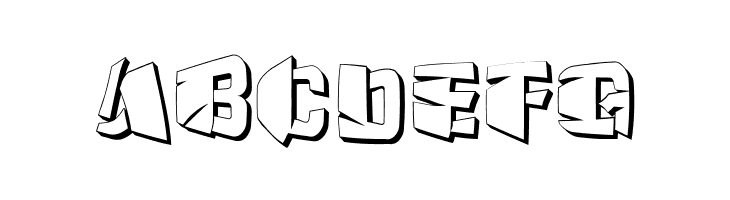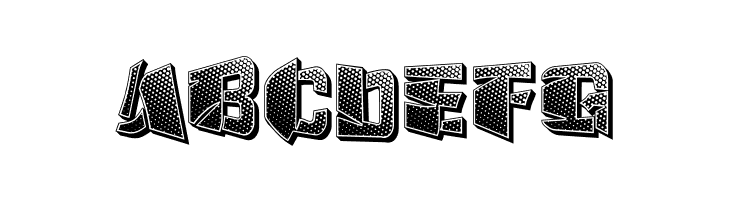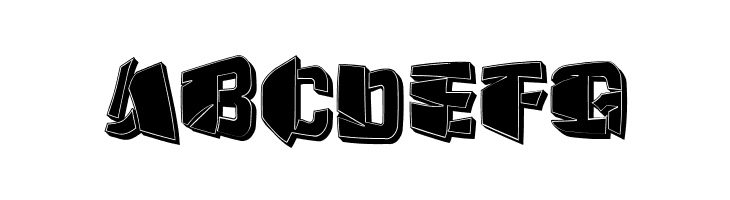
( In this post, we going to introduce an isolated and splintered typeface, which is a very worthy font for your extra-large text designs and it would be also great for your amazing headlines and titles. This stylish typeface is named Crazy Broken font, it c )